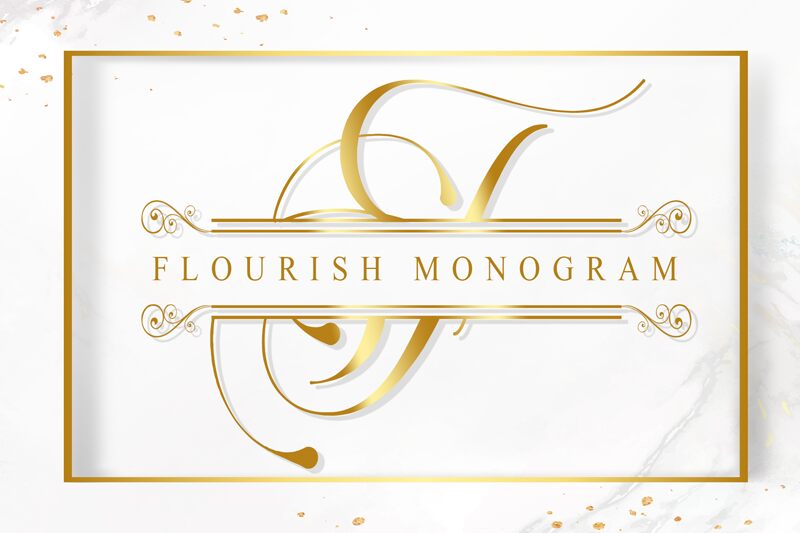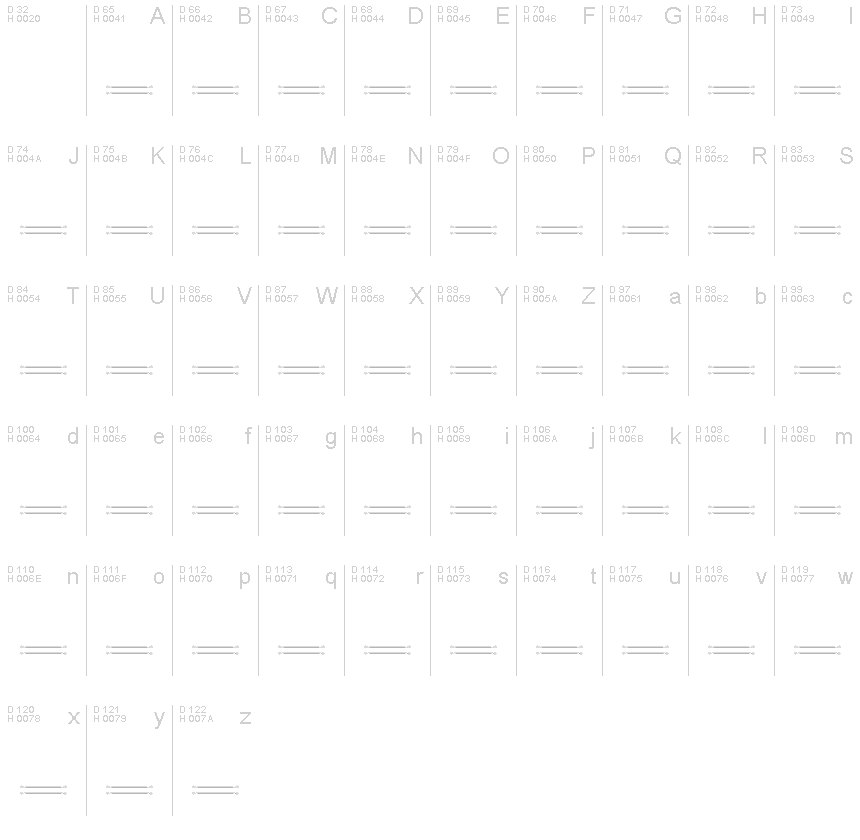
Flourish Divider
The Flourish Monogram Divider is an elegant dingbat font designed by Abduhan Fikhri from Doehantz Studio. It features fancy and intricate dividers that can be used to enhance visual appeal in various creative projects. From website designs to logo creations, this font can help you add a personal touch and create a unique look. The perfect combination of elegance and sophistication makes it suitable for modern branding or packaging designs. Bring your ideas to life with Flourish Monogram Divider!